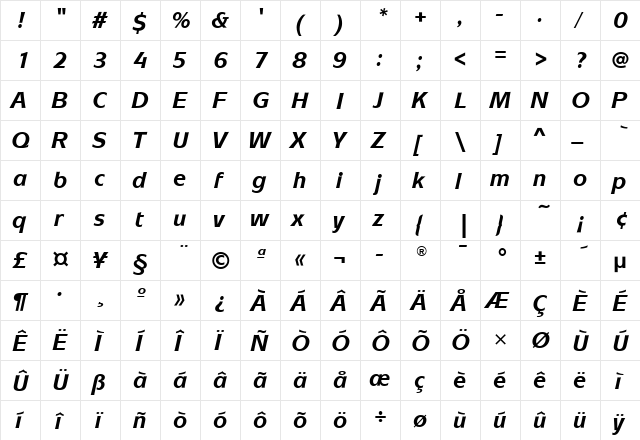
MixageITC Bold Italic Font Preview
MixageITC Bold Italic
MixageITC Bold Italic Font Details
Design Context for MixageITC Typeface
MixageITC is a composed and adaptable typeface that performs quietly and consistently across a wide range of design contexts. Its italic angle brings a sense of urgency and motion to the letterforms. Its bold stroke weight gives it real presence on the page.